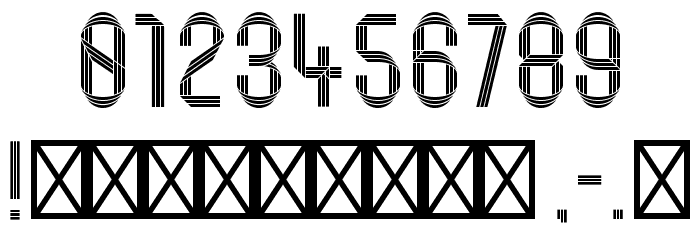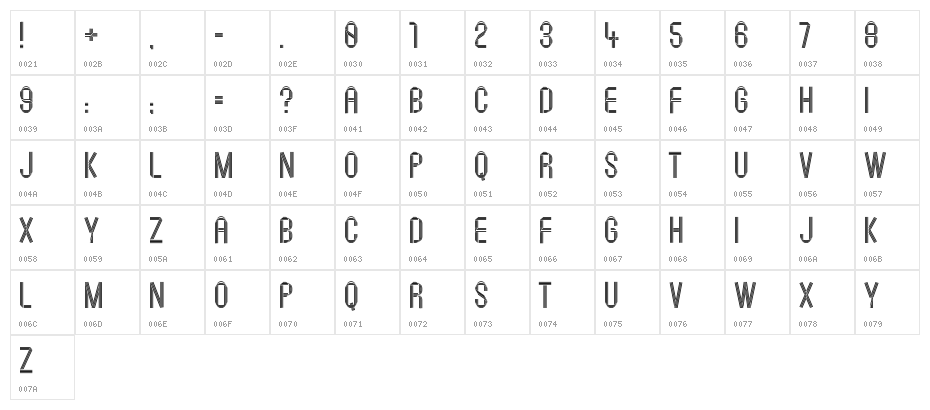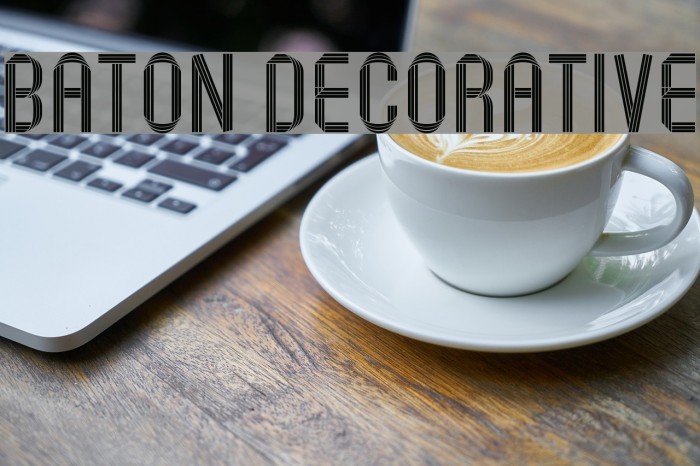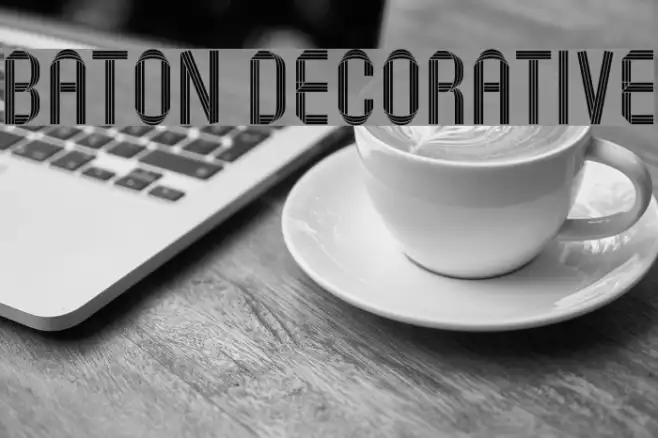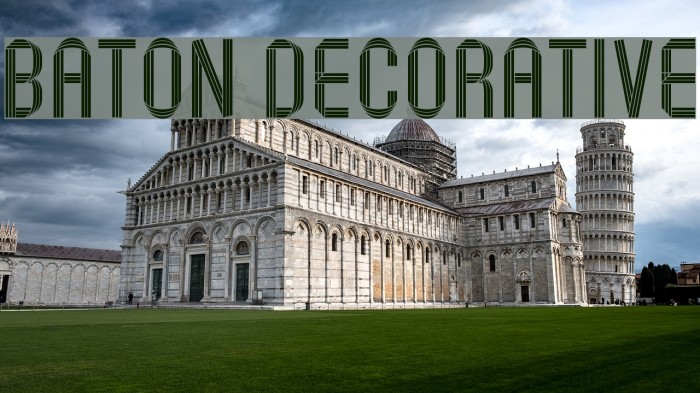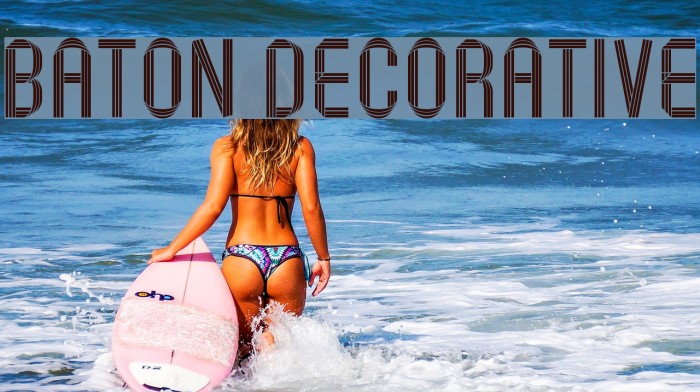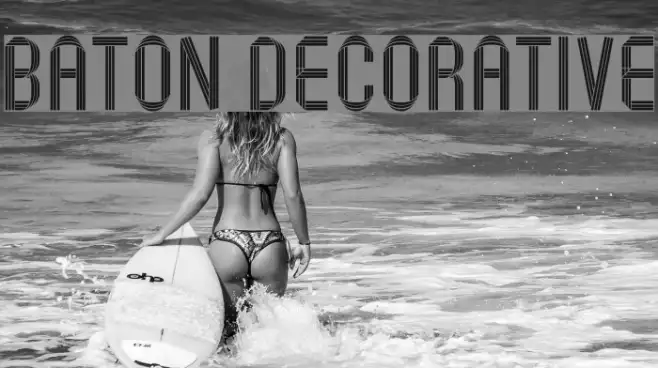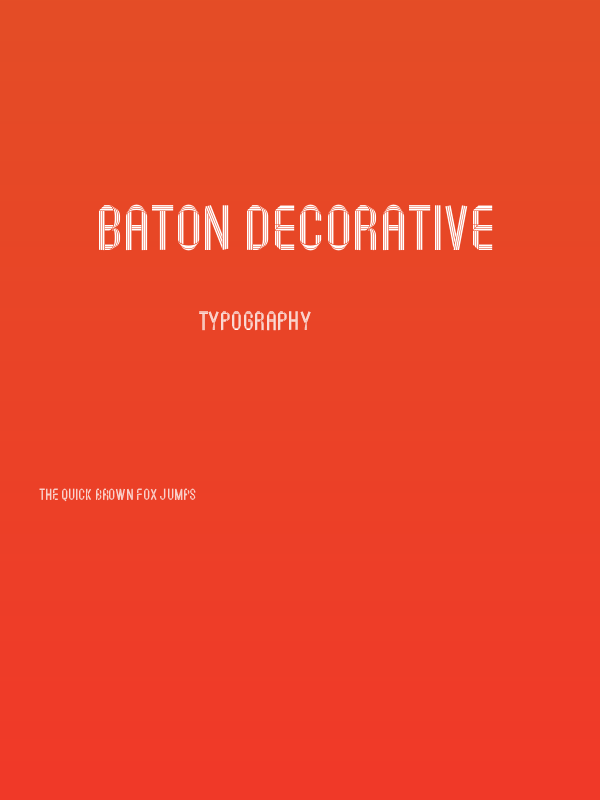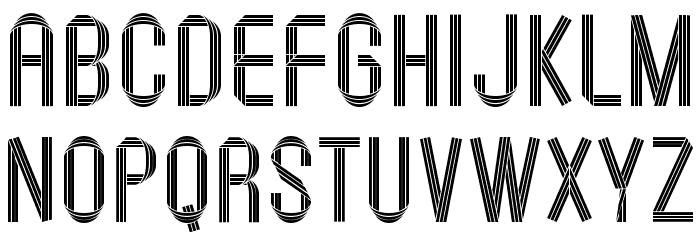
Baton Decorative Font
Baton Decorative Description
This font features a bold, decorative style with a unique striped pattern running through each character. The uppercase and lowercase letters maintain a consistent geometric design, emphasizing vertical and horizontal lines that create a sense of movement and rhythm. The numbers and special characters follow the same aesthetic, ensuring a cohesive look across all elements. The font's intricate detailing and bold presence make it ideal for eye-catching designs. Its structured form and decorative elements suggest a modern yet playful approach, suitable for various creative applications.
| Proposed Projects | Ideal for branding, posters, headlines, and any project requiring a striking, modern aesthetic. |